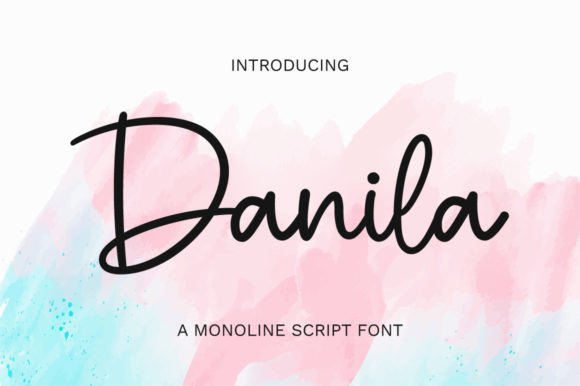
Introducing Danila Font, a script font that oozes elegance and charm. Its graceful curves and delicate strokes will captivate your readers, making it the perfect choice for creating enchanting logos, branding, and quotes that leave a lasting impression.
Step into a world of creative possibilities with Danila Font, where your words will dance with sophistication. Whether you're a designer seeking to craft a unique logo, a marketer seeking to captivate your audience, or a writer seeking to make your quotes shine, Danila Font is your perfect companion.
With Danila Font, you'll unlock a world of design possibilities. Create logos that exude luxury and sophistication, branding that radiates warmth and personality and social media posts that pop with vibrancy. Let Danila Font elevate your visual communication to new heights.